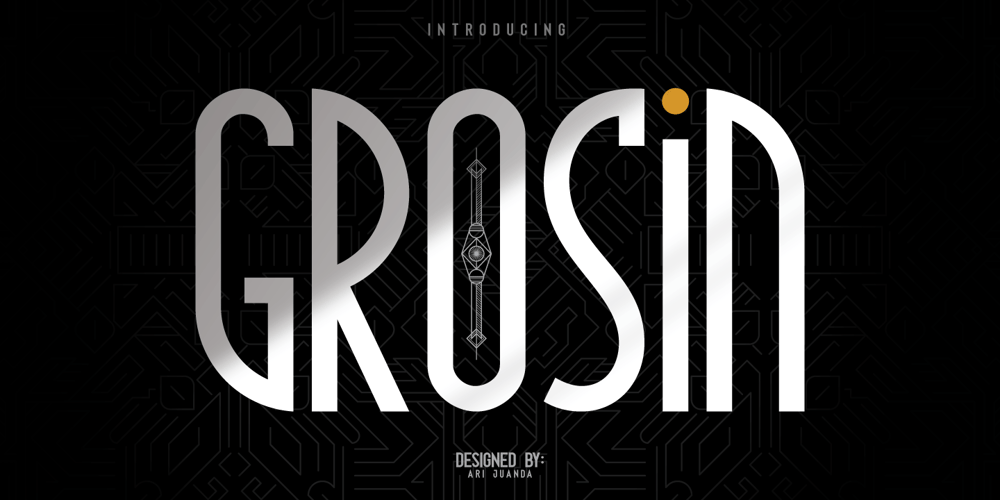
Grosin Font Family was designed by Ari Juanda and published by Linecreative. Grosin contains 1 styles and family package options. Introducing “Grosin,” a captivating typeface that seamlessly merges the timeless elegance of Art Deco with a modern, condensed form. This font embodies the essence of sophistication, offering a perfect blend of retro aesthetics and contemporary appeal.Grosin’s condensed design is a nod to efficiency, allowing it to make a bold statement even in limited space. Its sleek lines and geometric precision capture the essence of Art Deco, evoking the glamour and elegance of a bygone era while maintaining a distinctly modern feel.With Grosin, each character exudes a sense of refined simplicity, making it an ideal choice for conveying a sleek and stylish impression. The font’s condensed nature ensures versatility, making it well-suited for a range of applications, from titles and headlines to posters and modern art projects.The beauty of Grosin lies in its ability to transport your designs into a harmonious blend of past and present. Whether you’re aiming for a retro-inspired aesthetic or a modern twist on classic design, Grosin stands as a testament to the enduring allure of Art Deco, breathing new life into your creative endeavors. Choose Grosin for a typeface that effortlessly bridges the gap between nostalgia and contemporary chic.